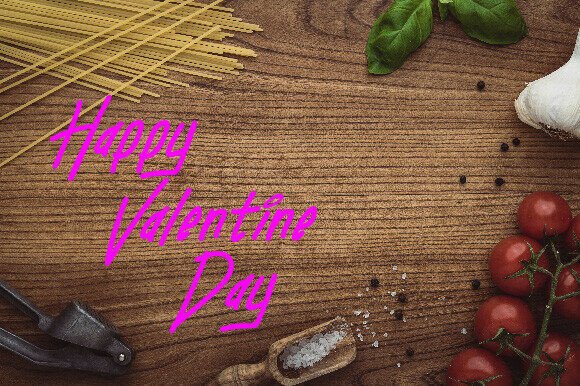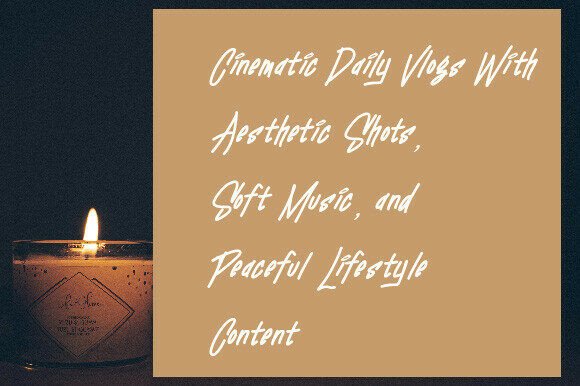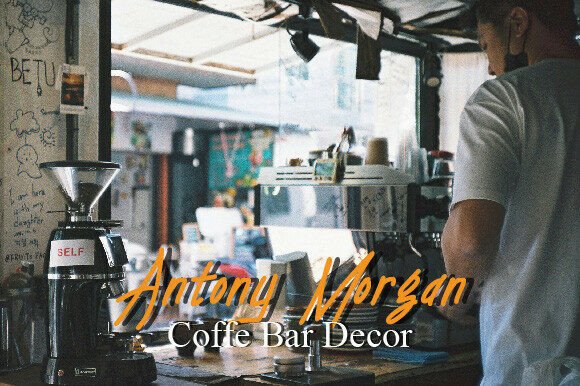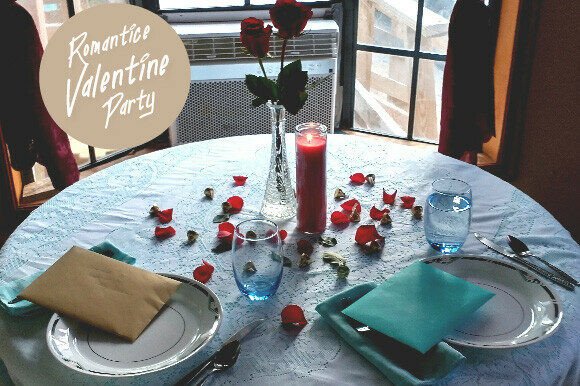
Discover the Charming Belagu Font: Elevate Your Design with a Touch of Whimsy
Are you searching for a font that embodies the warmth and approachability of everyday school script? Look no further than Belagu, a delightful handwritten font that captures the essence of classroom charm. This simple and clean school handwriting font is designed to bring a sense of authenticity and friendliness to your designs, making it perfect for educational resources, children’s worksheets, and personal journaling apps.
The Unique Characteristics of Belagu
Belagu boasts slender, fluid strokes and an organic rhythm that mimics the natural flow of a teacher’s whiteboard notes. This thoughtful design ensures that the font exudes a sense of approachability and clarity, making it an exceptional tool for instructional infographics, childhood-oriented storytelling, and personalized stationery.
One of the standout features of Belagu is its neutral yet friendly personality. This balance of characteristics makes it an ideal choice for designers and crafters seeking to create engaging and accessible content for children and educators alike. Whether you’re designing educational materials, creating classroom decor, or crafting social media content, Belagu provides a sincere and professional foundation for your message.
Applications for Belagu
The versatility of Belagu makes it suitable for a wide range of applications, including:
- Educational Resources: Bring a touch of warmth and personality to textbooks, workbooks, and educational materials with Belagu’s charming script.
- Children’s Worksheets: Make learning fun with Belagu’s playful and approachable font, perfect for activity sheets, worksheets, and educational games.
- Personal Journaling Apps: Add a personal touch to digital journaling with Belagu’s friendly and inviting script.
- Instructional Infographics: Create engaging and easy-to-understand infographics with Belagu’s clean and clear font.
- Childhood-Oriented Storytelling: Bring stories to life with Belagu’s whimsical and imaginative script, perfect for children’s books, comics, and storytelling.
- Personalized Stationery: Add a touch of personality to stationery, greeting cards, and invitations with Belagu’s charming font.
- Classroom Decor: Create eye-catching classroom decor, posters, and bulletin boards with Belagu’s friendly and approachable script.
- School-Themed Social Media Content: Make your social media content stand out with Belagu’s clean and legible font, perfect for creating engaging and shareable content.
Why Choose Belagu?
Belagu offers a unique combination of characteristics that make it an attractive choice for designers and crafters:
- Clean Verticality: Belagu’s clean and balanced characters ensure that your message remains the focal point, providing a sincere and professional foundation for your design.
- Exceptional Legibility: Belagu’s slender, fluid strokes and organic rhythm make it easy to read, even at smaller font sizes.
- Neutral yet Friendly Personality: Belagu strikes the perfect balance between approachability and professionalism, making it suitable for a wide range of applications.
Belagu is a charming handwritten font that captures the essence of everyday school script, making it an excellent choice for designers and crafters seeking to add a touch of whimsy to their designs. With its unique characteristics, versatility, and exceptional legibility, Belagu is the perfect tool for creating engaging and accessible content for children and educators alike. Whether you’re designing educational resources, creating classroom decor, or crafting social media content, Belagu provides a sincere and professional foundation for your message.